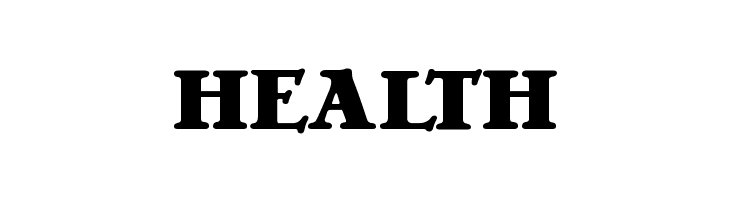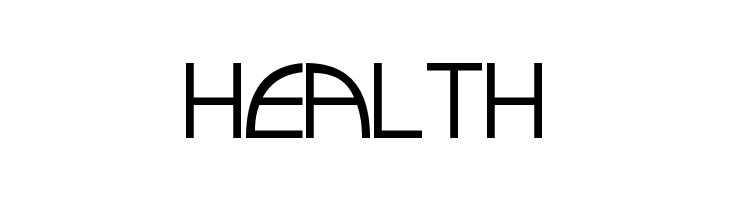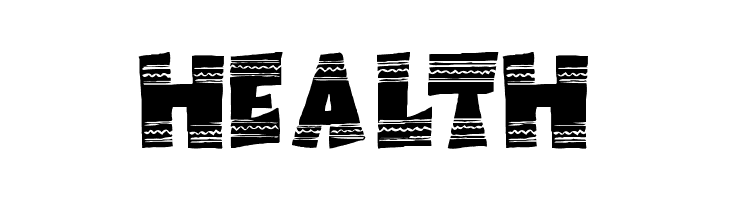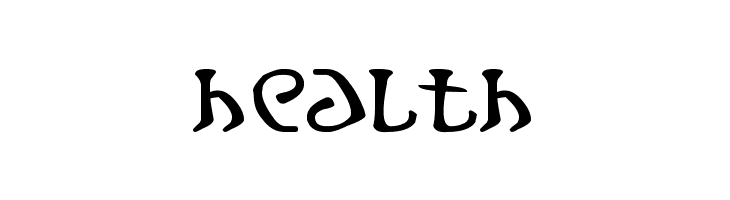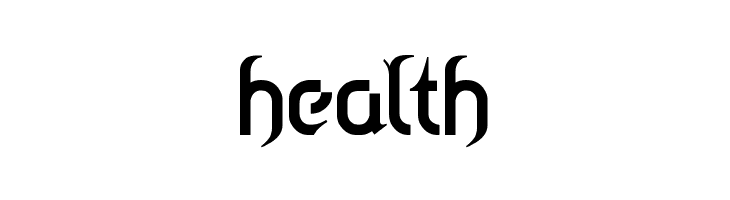
A bold, slanted font with a futuristic and industrial style.
A bold, playful font with a hand-drawn, cartoonish style.
A bold, angular font with a futuristic and edgy design.
An ornate Gothic-style font with bold, intricate characters and elaborate serifs.
A playful, handwritten font with dynamic and irregular strokes.
A lively, handwritten cursive font with a playful and dynamic style.
A bold, impactful font with thick strokes and a strong presence.
A playful, hand-drawn font with a whimsical and casual style.
A bold, modern sans-serif font with clean lines and high legibility.
A playful, bold font with thick, rounded strokes and a whimsical style.
A dynamic, expressive handwritten font with fluid cursive letterforms.
A playful, casual handwritten font with smooth, flowing lines.
A bold, brush script font with a textured, hand-painted appearance.
A bold, expressive handwritten font with fluid strokes and artistic flair.
A bold, textured, three-dimensional font with a playful, hand-drawn style.
An elegant and flowing script font with intricate loops and swashes.
A bold, italic font with sharp angles and a modern, dynamic style.
A bold, geometric typeface with strong, angular lines and a modern aesthetic.
A bold, geometric font with a futuristic and modern aesthetic.
A bold, italicized font with a modern, dynamic style and tight character spacing.
A tall, condensed font with a modern and sleek appearance.
A bold, 3D hand-drawn font with a playful, dynamic style.
A hand-drawn, edgy font with angular, intersecting lines and a sketch-like appearance.
An artistic, calligraphic font with swirling, dynamic lines and elaborate flourishes.
A dynamic, expressive handwritten font with fluid strokes and varying thickness.
A playful, rounded font with a hand-drawn feel and consistent bold weight.
A bold, boxy font with rounded edges and uniform strokes.
A playful, rounded font with thick strokes and smooth curves.
A bold, playful font with rounded terminals and consistent spacing.
A bold, thick font with rounded edges, perfect for impactful headlines.
A bold, playful font with dynamic, irregular shapes and a lively appearance.